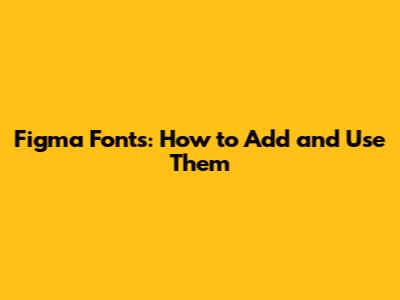
- Install the Figma Desktop App: If you haven't already, download and install the Figma desktop app from the Figma website. The desktop app offers more stability and features compared to the browser version.
- Install Fonts on Your Computer: Before Figma can use a font, it needs to be installed on your computer. Download the font files (usually in
.otfor.ttfformat) from a reputable source. Double-click the font file and click "Install" (on Windows) or "Install Font" (on macOS). Make sure the font is properly installed and activated on your system. - Restart Figma: After installing the fonts, close and reopen the Figma desktop app. This ensures that Figma recognizes the newly installed fonts. Sometimes, you might even need to restart your computer for the fonts to be correctly recognized, but usually, a simple restart of the app does the trick.
- Access Your Fonts: Once Figma is open, create a new design or open an existing one. Select a text layer, and in the text panel on the right, click on the font dropdown menu. Your newly installed fonts should now appear in the list. If you don't see them, double-check that they are installed correctly on your system and that Figma has been restarted.
- Select a Text Layer: In your Figma design, select the text layer you want to modify.
- Open the Font Dropdown: In the text panel on the right, click on the font dropdown menu. This will display a list of available fonts.
- Browse Google Fonts: At the top of the font list, you'll see an option to "Browse all Google Fonts." Click on this to open the Google Fonts library within Figma.
- Choose Your Font: Scroll through the list or use the search bar to find the perfect font for your design. You can filter fonts by category, properties (like serif, sans-serif, or monospace), and popularity.
- Apply the Font: Once you find a font you like, simply click on it to apply it to your selected text layer. The font will be instantly updated in your design.
- Font Doesn't Appear in Figma:
- Check Installation: Make sure the font is properly installed on your computer. Double-check the installation process and ensure the font is activated.
- Restart Figma: Restarting Figma is often the simplest solution. Close the app completely and reopen it to refresh the font list.
- Restart Computer: In some cases, you might need to restart your computer for the font to be recognized by Figma.
- Font Rendering Issues:
- Font Format: Ensure the font is in a compatible format (e.g.,
.otfor.ttf). Older or corrupted font files can cause rendering problems. - Graphics Card: Outdated graphics card drivers can sometimes cause font rendering issues. Update your graphics card drivers to the latest version.
- Figma Updates: Make sure you're using the latest version of Figma. Updates often include bug fixes and performance improvements that can resolve rendering issues.
- Font Format: Ensure the font is in a compatible format (e.g.,
- Embedding: If you're sharing your Figma files with others, ensure the fonts are properly embedded or that your collaborators have the necessary fonts installed. Otherwise, they may see fallback fonts instead of your intended design.
- Use Styles: Figma's Styles feature is a lifesaver for managing fonts. Create text styles for headings, body text, captions, and other common elements. This allows you to quickly apply the same font settings to multiple text layers and make global changes with ease. Styles ensure consistency and reduce the risk of errors.
- Organize Your Fonts: As your font library grows, it's important to keep it organized. Use meaningful names for your fonts and group them by category or project. This makes it easier to find the right font when you need it.
- Font Pairing: Choosing the right font combinations can be challenging, but it's crucial for creating visually appealing designs. Experiment with different font pairings and create a library of your favorite combinations. Tools like FontPair can help you discover harmonious font pairings.
- Limit Font Usage: While it's tempting to use a wide variety of fonts, sticking to a limited palette can improve the overall coherence of your designs. Aim for two to three fonts per project to maintain a consistent visual identity.
- Regularly Review Your Fonts: Periodically review your font library and remove any fonts you no longer use. This helps keep your font list manageable and reduces clutter.
- Readability: Prioritize readability above all else. Choose fonts that are easy to read at various sizes and in different contexts. Avoid overly decorative or stylized fonts for body text, as they can strain the eyes.
- Hierarchy: Use font size, weight, and style to create a clear visual hierarchy. Headings should be larger and bolder than body text, and important information should be emphasized with bold or italic formatting.